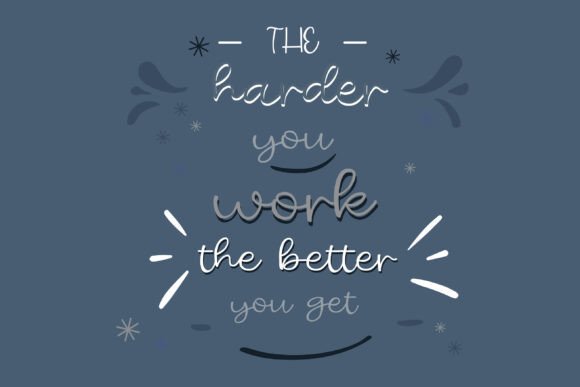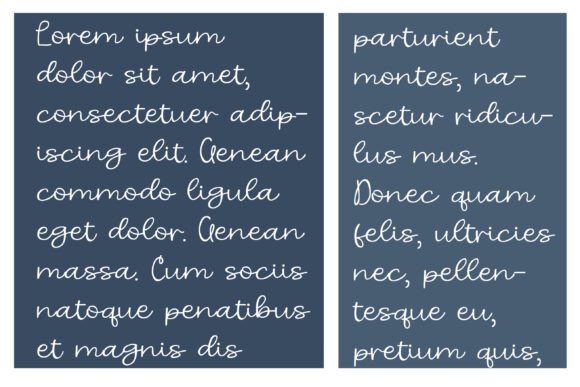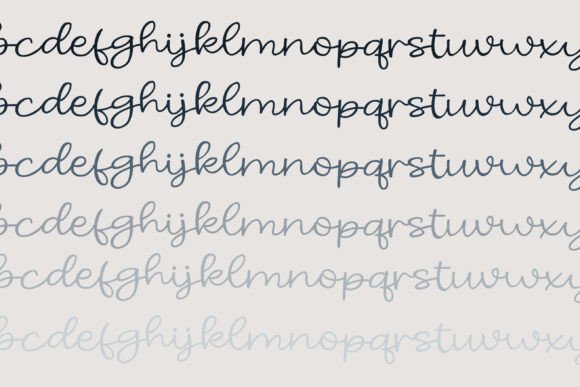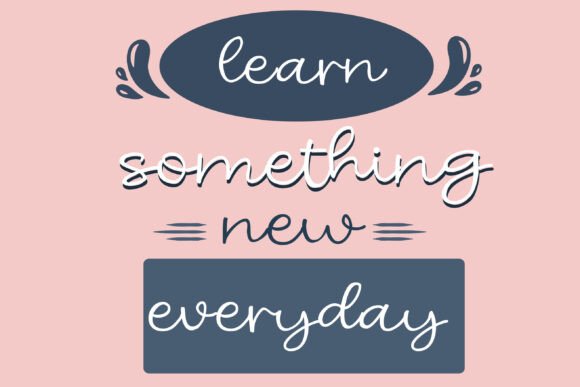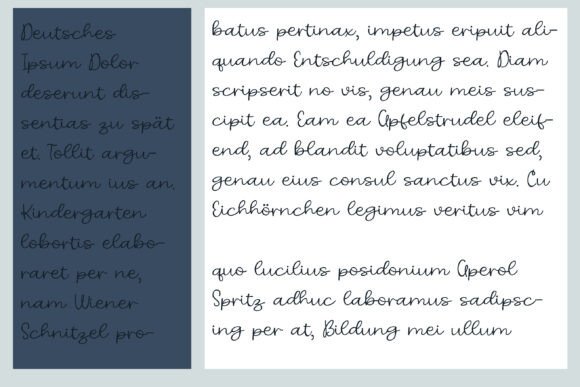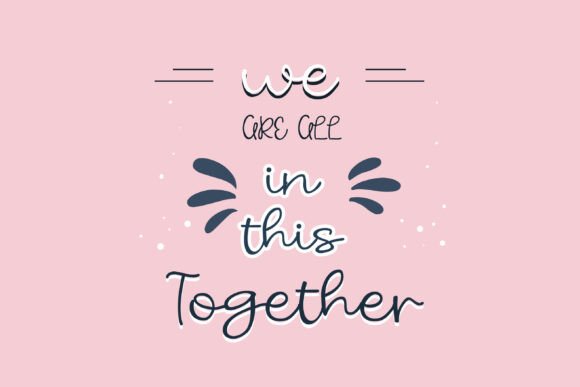
Introduction to Sabrista Font
Have you ever been working on a creative project, pouring your heart and soul into every detail, only to realize that the perfect finishing touch is just out of reach? That’s where a high-quality design resource like the Sabrista Font comes in – a beautifully crafted, hand-cursive font that’s sure to elevate your project to the next level.
With its casual, yet elegant feel, the Sabrista Font is the perfect choice for designers looking to add a touch of personality to their work. Whether you’re creating an invitation, a greeting card, or any other type of design, this versatile font is sure to make a lasting impression.
Key Features of Sabrista Font
- High-quality, professional font design ideal for creative projects
- Unique, modern design style that can be used for a variety of creative projects
Honest Review: Sabrista Font
As a designer, I’m always on the lookout for high-quality design resources to elevate my creative projects. Recently, I stumbled upon the Sabrista Font, and I’m excited to share my honest review with you.
- ✨ Unique and stylish design: The Sabrista Font has a distinctive look that’s perfect for modern designs. Its clean lines and elegant curves make it a great choice for creative projects.
- ⚠️ Limited font styles: While the Sabrista Font is a great addition to any design library, it’s limited to a single style, which may not be ideal for designers who need a range of font options.
- ⚠️ Not suitable for all projects: The font’s modern design may not be the best fit for traditional or formal projects.
Overall, I’m impressed with the Sabrista Font, and I think it’s a great addition to any designer’s toolkit. While it has some limitations, its unique design and free download make it a valuable resource for creative projects.
Tips for Getting the Most Out of Sabrista Font
Experiment with different font sizes, colors, and combinations to achieve a unique look for your design. Take advantage of the transparent background to create layered designs and compositions.
Common Use Cases for Sabrista Font
The Sabrista Font is suitable for a variety of design projects, including branding, marketing materials, and digital products. Its high-quality and transparent background make it an ideal choice for creative projects requiring a professional look.